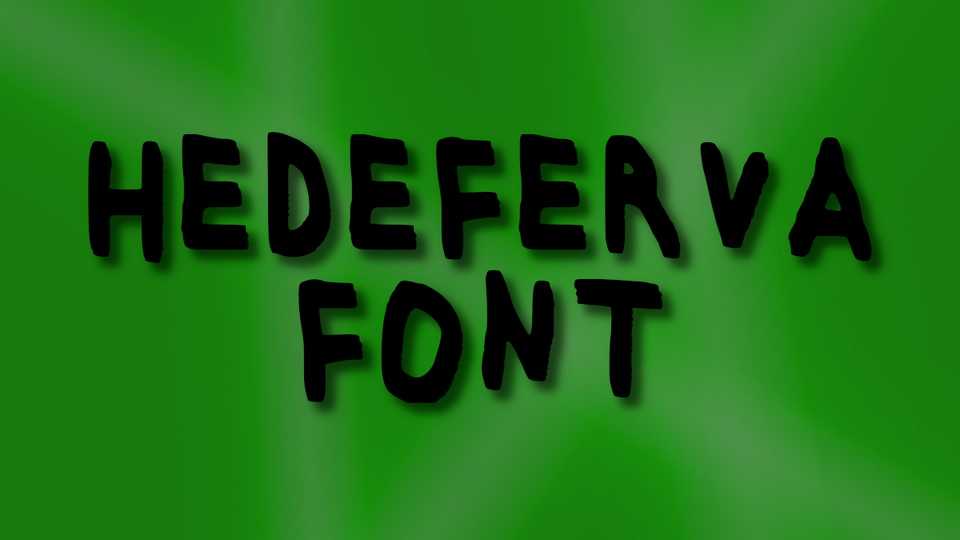
Download Hedeferva font, a simple and casual brush typeface. With its natural hand painted look Hedeferva font is perfect for crafts, posters, quotes and other projects that need a personal touch.